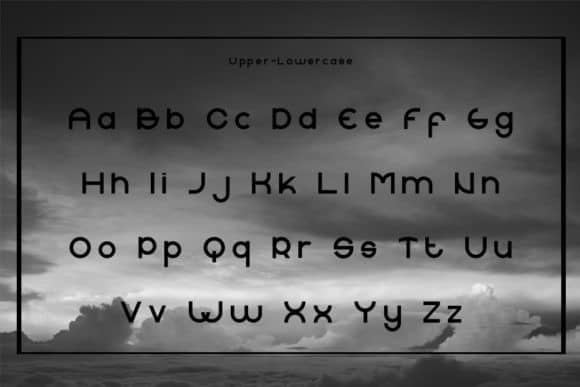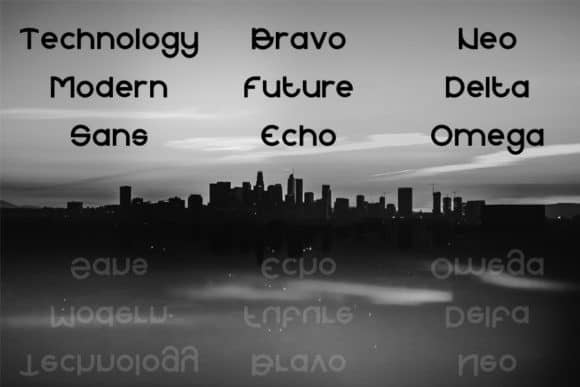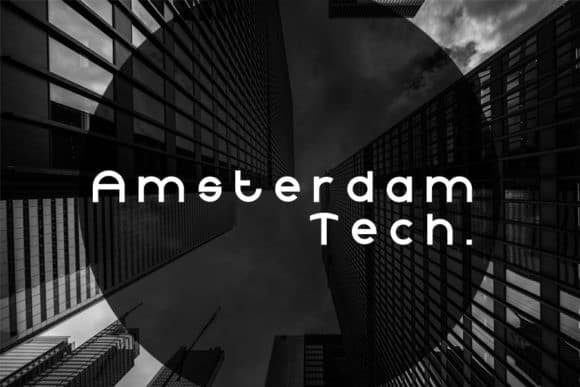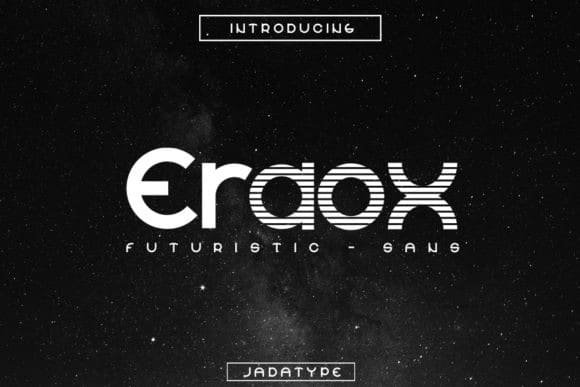
Eraox Display Font
Introducing Eraox Display Font is a modern take on the futuristic scifi theme, this typeface is clean, sharp, and have plenty of alternative, you can easily access them through uppercase lowercase. It has a unique and modern style that makes it perfect for flyers, games, posters, and more!